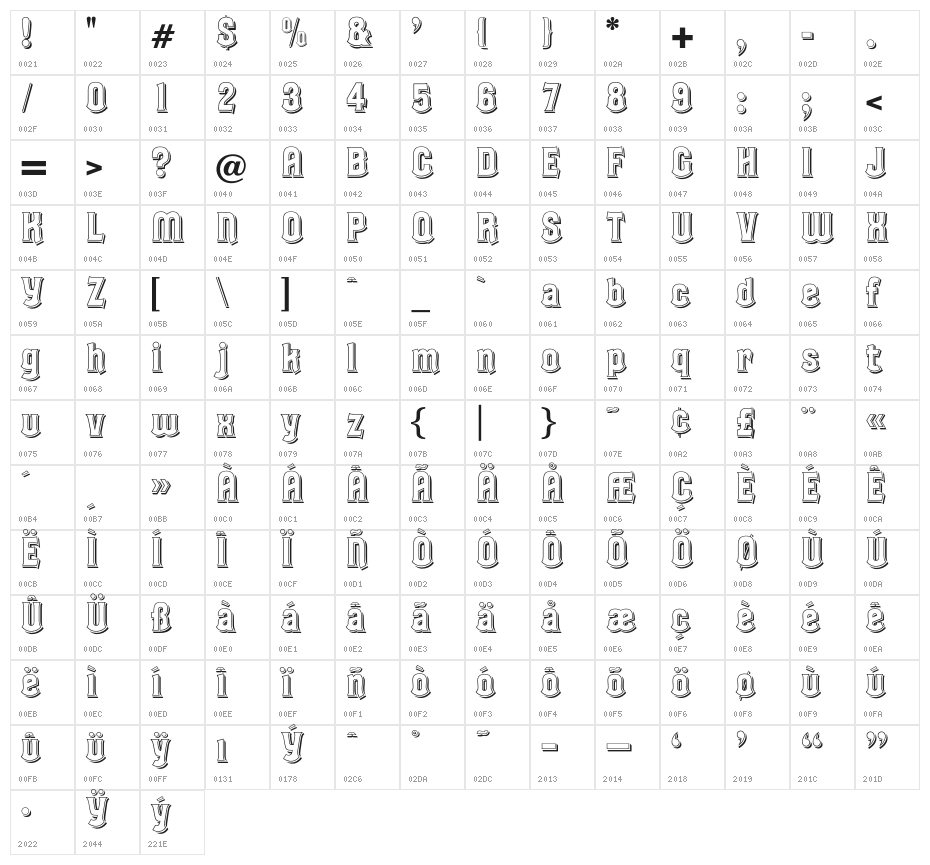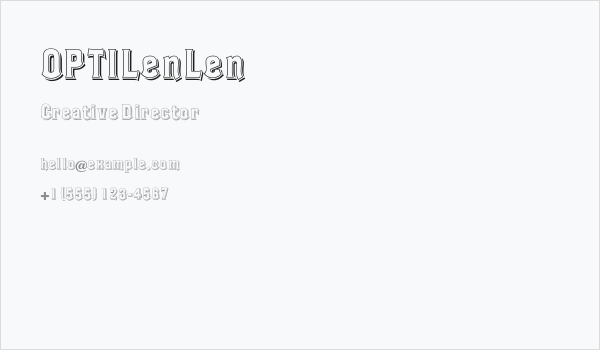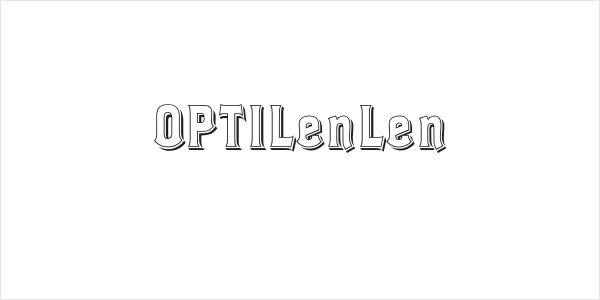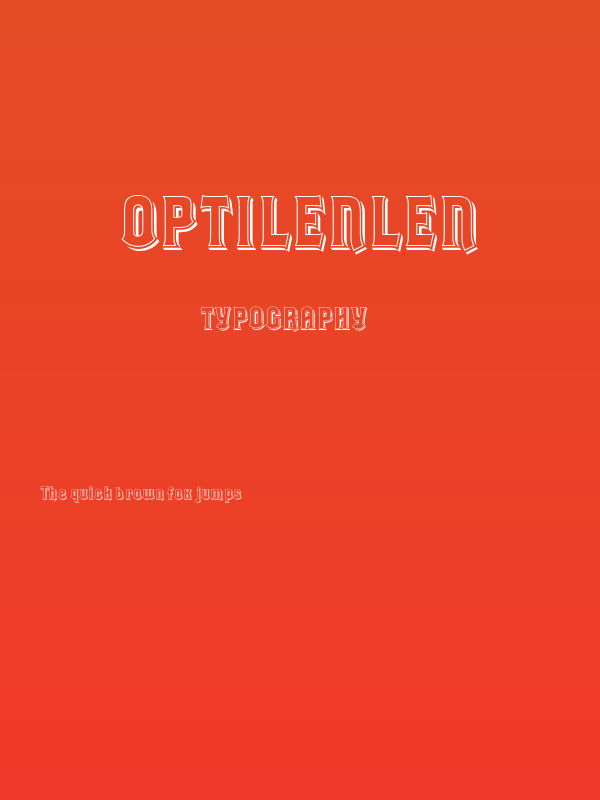
OPTILenLen Font
OPTILenLen Description
This font features a bold, three-dimensional appearance with a shadow effect that gives it a striking and dynamic look. The characters are uppercase and lowercase letters, numerals, and a variety of special symbols. Each character has a thick outline that enhances its visibility and impact. The font's style is reminiscent of vintage signage or poster art, with a playful yet robust aesthetic. The shadowing adds depth, making it suitable for designs that require a standout headline or title. The overall design is consistent across all characters, maintaining a uniformity that is visually appealing.
| Overall Style | Vintage |
| Proposed Projects | Ideal for retro-themed posters, eye-catching headlines, branding materials, and decorative signage. |